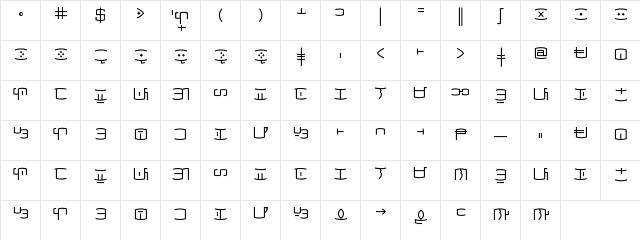
Complete Baybayin Mod SC Regular glyph index. Displaying only characters natively supported by Baybayin Mod SC Regular font.
Baybayin Mod SC is a composed and adaptable typeface that performs quietly and consistently across a wide range of design contexts.